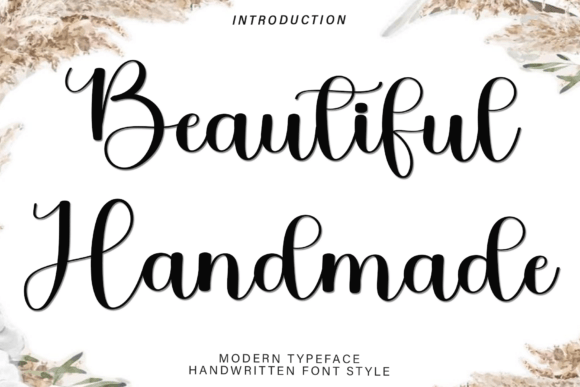
Beautiful Handmade Font: Elevate Your Designs with a Unique Touch
In the world of typography, a beautiful handmade font can make all the difference in creating visually stunning designs. One such font that has caught the attention of designers and artists alike is the Beautiful Handmade font. This font is designed with a soft, unique touch that sets it apart from other fonts, making it perfect for a wide range of creative projects.
Distinctive Strokes and Characters
The Beautiful Handmade font boasts distinctive strokes that give it a special character, making it meaningful and versatile for future use. Its unique design ensures that your designs stand out from the crowd, grabbing the attention of your audience. With various characters, this font is perfect for design projects, crafts, and other creative works.
- Unique and soft touch design
- Distinctive strokes for a special character
- Meaningful and versatile for future use
- Various characters for creative freedom
- Ideal for a wide range of products and designs
- Perfect for use in various artistic and creative fields
Endless Design Possibilities
The Beautiful Handmade font is perfect for a wide range of design projects, including:
- Logo design: Create unique and memorable logos that stand out from the crowd
- Branding: Develop a consistent brand identity with this versatile font
- Packaging design: Add a touch of elegance and sophistication to your product packaging
- Stationery design: Create beautiful and eye-catching stationery, including business cards, letterheads, and more
- Digital design: Use this font in your digital designs, such as website headers, social media graphics, and more
Unlock Creative Freedom in Artistic Fields
The Beautiful Handmade font is not just limited to design projects; it’s also perfect for various artistic and creative fields, including:
- Illustration: Add a touch of handmade charm to your illustrations
- Painting: Use this font to create beautiful and unique titles or captions for your artwork
- Crafts: Perfect for use in various craft projects, such as handmade cards, gift tags, and more
- Journaling: Add a personal touch to your journal entries with this beautiful font
The Benefits of Using Beautiful Handmade Font
Using the Beautiful Handmade font in your designs offers numerous benefits, including:
- Unique and eye-catching designs
- Improved brand identity and recognition
- Increased creative freedom
- Perfect for a wide range of artistic and creative fields
Tips and Tricks for Using Beautiful Handmade Font
To get the most out of the Beautiful Handmade font, here are some tips and tricks to keep in mind:
- Experiment with different font sizes and styles to create visual interest
- Pair this font with other fonts to create a unique and harmonious design
- Use this font consistently across different mediums to establish a strong brand identity
- Don’t be afraid to get creative and try new things!
In conclusion, the Beautiful Handmade font is a versatile and unique font that can elevate your designs and add a touch of handmade charm to your artistic projects. With its distinctive strokes, various characters, and seamless compatibility with various applications, this font is perfect for a wide range of creative projects. So why not give it a try and see the difference it can make in your designs?